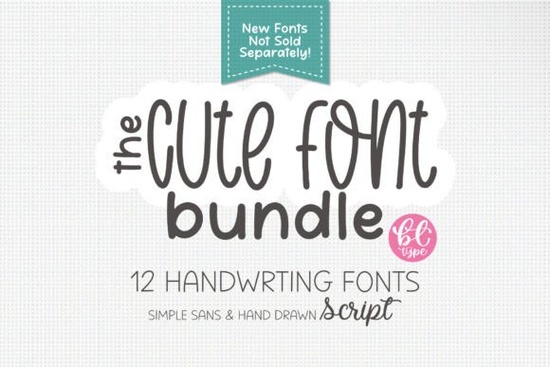
If you're looking for a set of handwritten fonts that feel warm, personal, and full of character, the Cute Handwriting Bundle Font is a great choice. This collection includes 12 unique handwriting-style fonts, each designed to bring a handmade touch to your creative projects. Whether you're making greeting cards, planning a journal spread, or designing printable items for your shop, these fonts add charm without needing to write by hand.
What’s included in the Cute Handwriting Bundle?
The bundle features 12 distinct handwritten styles each one carefully created to stand out while keeping a cohesive, friendly vibe. These aren’t just random scribbles; they’re legible, well-spaced, and perfect for both digital and print use. You’ll find variations in thickness, slant, and style some more delicate, others bolder and playful so there’s something for every mood and project type.
- Fonts suitable for invitations, quotes, and social media graphics
- Perfect for crafters working on scrapbooking or DIY stationery
- Great for small businesses creating branded content with a personal touch
- Works well in Canva, Adobe Illustrator, and other design tools
Why choose this bundle over individual fonts?
One of the best things about this bundle is that all 12 fonts are exclusive and never sold separately. That means you get a full range of styles without having to buy them one at a time. It also gives you flexibility you can mix and match different fonts within a single project to create visual interest. For example, using a soft script for a quote and a bolder version for the title adds depth without clutter.
How to use these fonts in real-life projects
Try pairing a delicate font like Willow with a slightly bolder one for headings. The contrast makes your designs pop without feeling chaotic. Or, use a playful handwriting style for kids’ party invites, and switch to a cleaner script for thank-you notes.
For print-on-demand sellers, these fonts work beautifully on mugs, T-shirts, and wall art. They give your products a homemade feel that customers love. Many buyers look for designs that feel “personal” rather than mass-produced and these fonts help deliver that.
If you’ve used similar fonts before, you might recognize some familiar vibes. For instance, the gentle curves of Angela or the whimsical flair of Backpack could remind you of other popular scripts but these are original, not copied.
Who this is best for
This bundle works especially well for:
- Crafters who want quick, stylish text options for handmade goods
- Small business owners building a brand with a cozy, authentic feel
- Designers who need variety without adding complexity
- Hobbyists who enjoy journaling, coloring, or decorating their space
It’s not just about looks it’s about saving time and finding fonts that actually work in real projects. These aren’t flashy gimmicks; they’re practical tools that help you focus on creativity, not technical hassle.
Next step: Try it out and see what fits your style
Start by downloading the bundle and testing a few fonts in a simple project a birthday card, a social media post, or a notebook cover. See which ones feel right for your voice and vision. Then, build from there. Keep experimenting until you find your favorites.